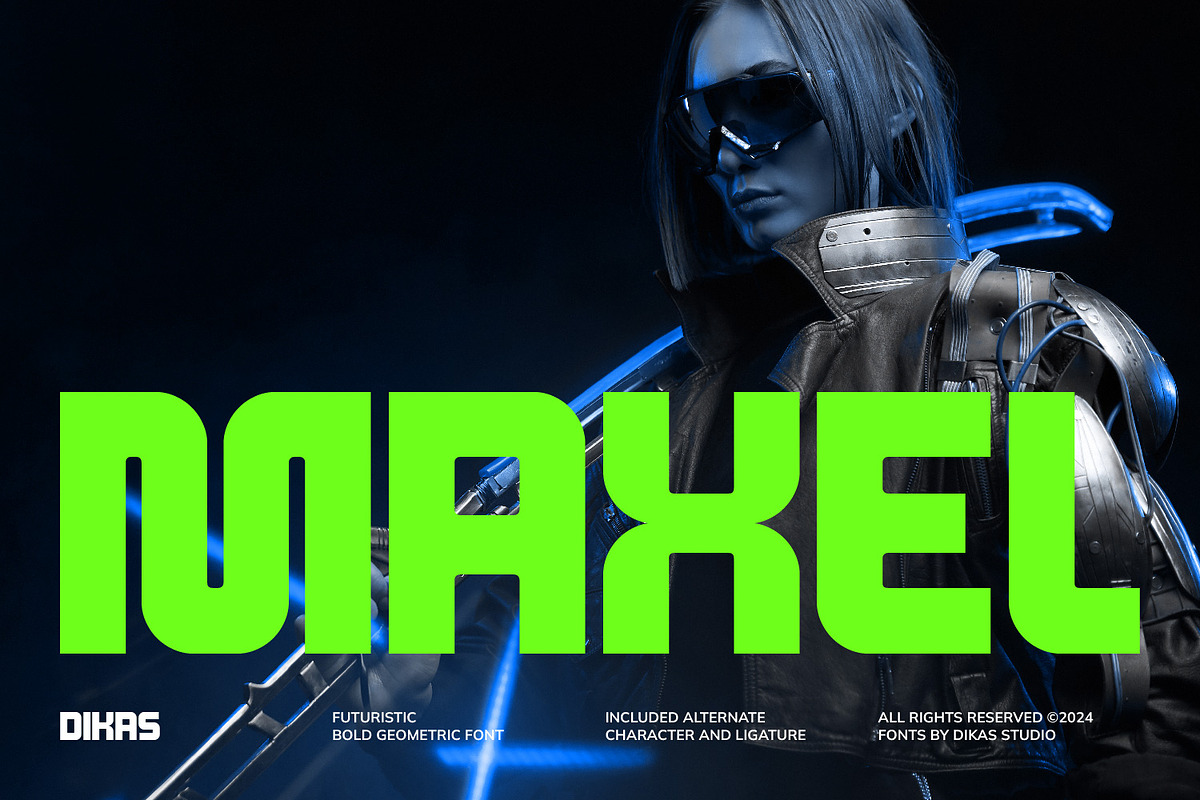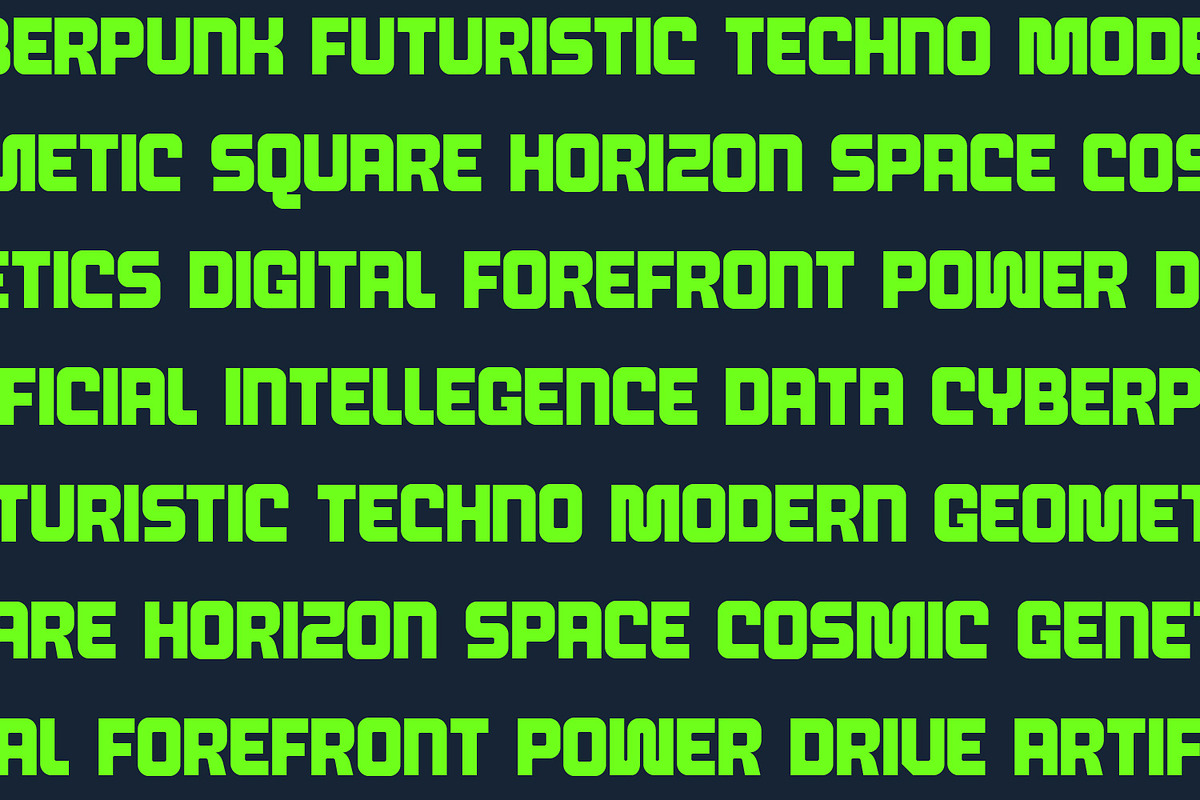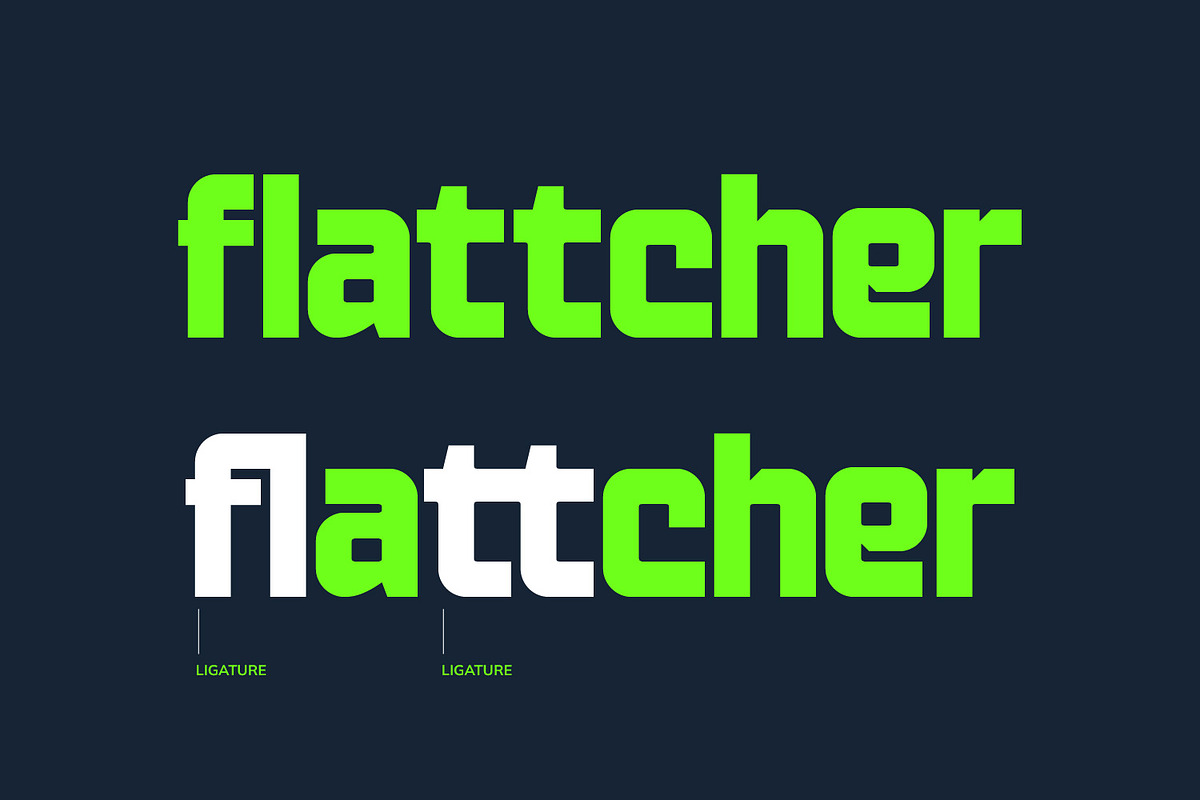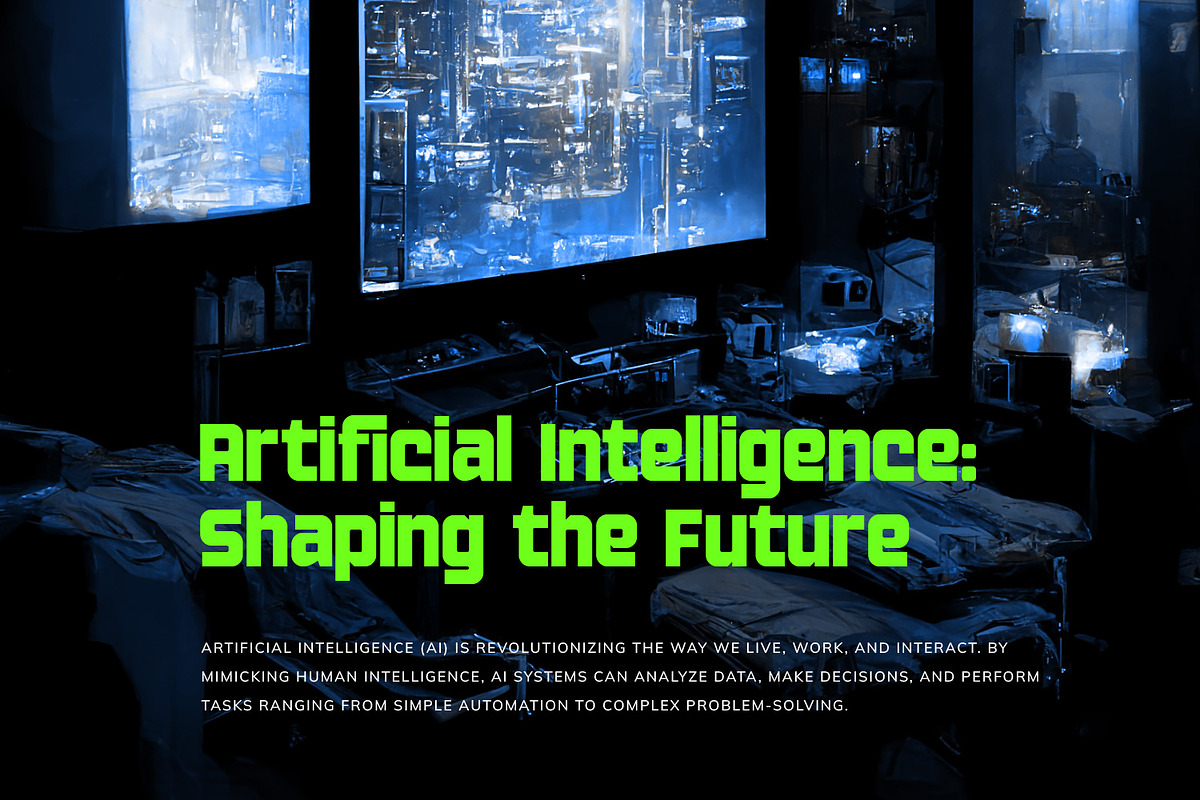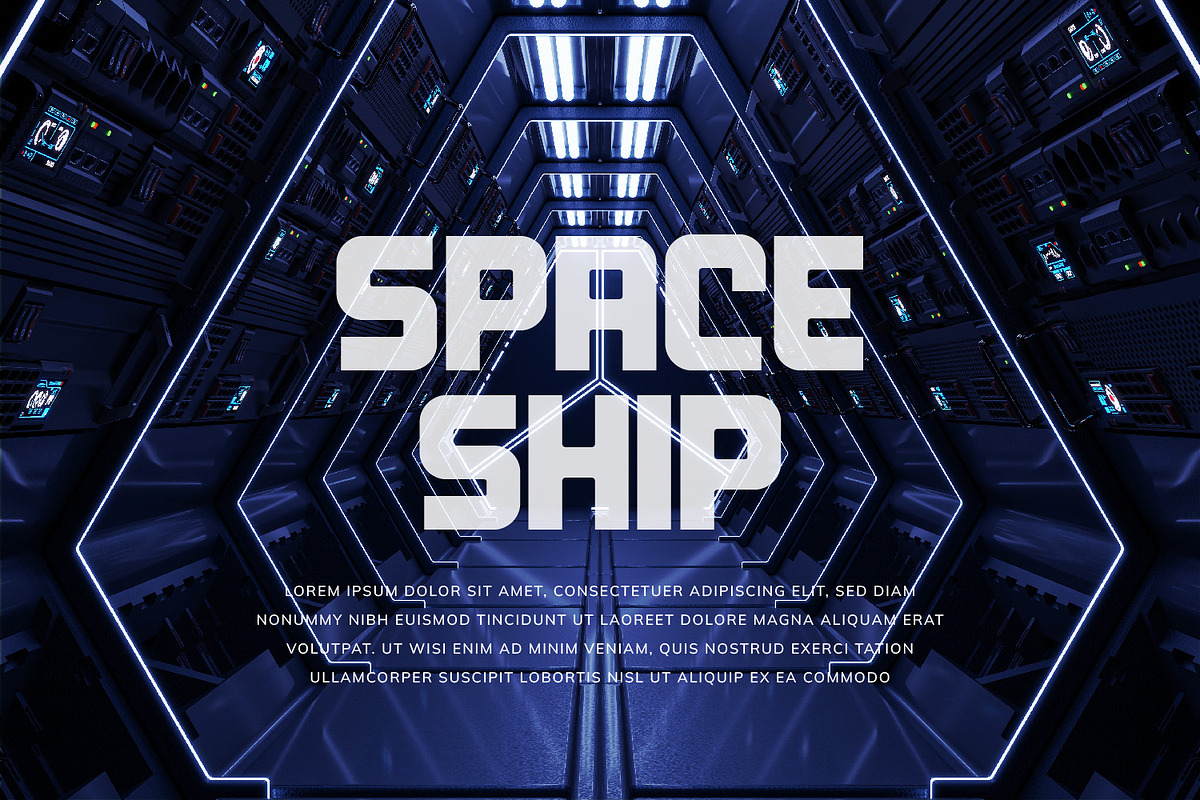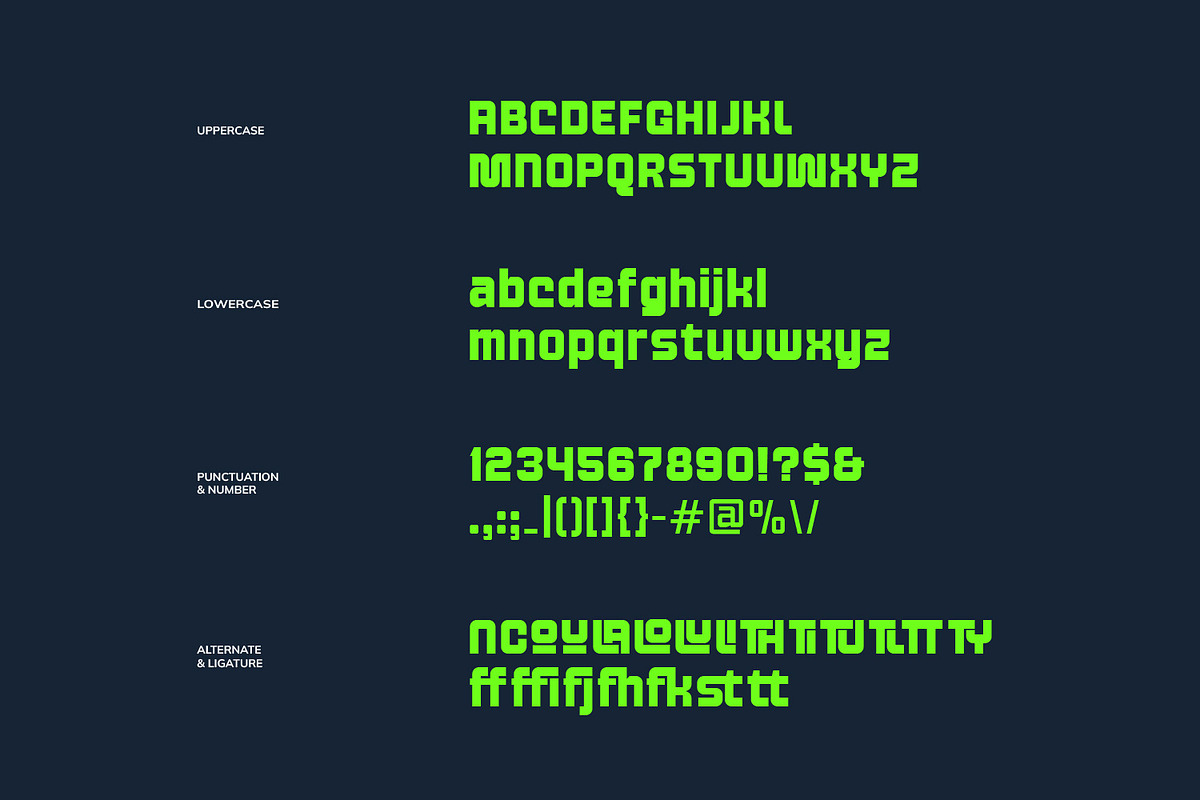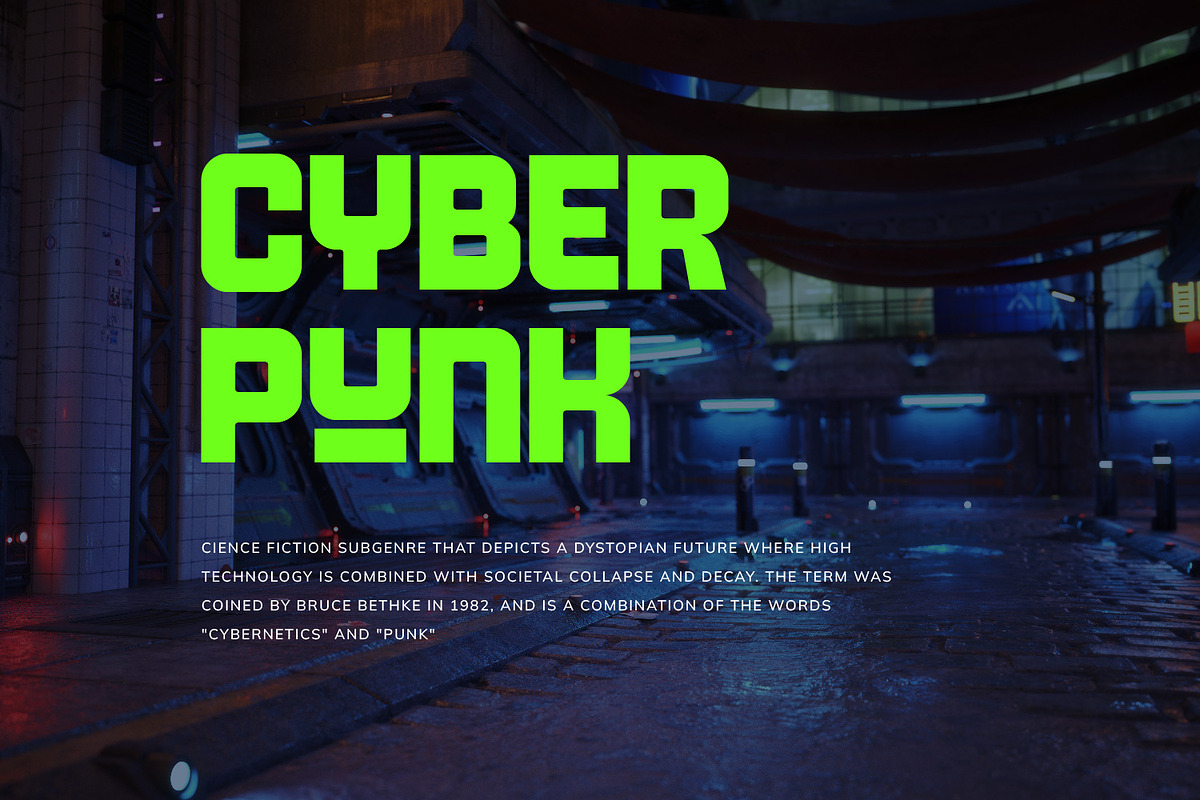
Maxel - Bold Futuristic
Maxel is a bold sans-serif font with a sleek, futuristic style that makes it perfect for modern and cutting-edge designs. Whether you’re creating for space themes, techno aesthetics, gaming projects, or crafting standout branding and logos, Maxel delivers a powerful and contemporary look. Its strong, versatile character is ready to elevate your creative vision.